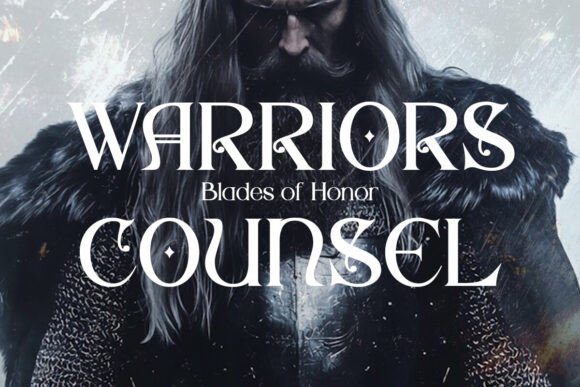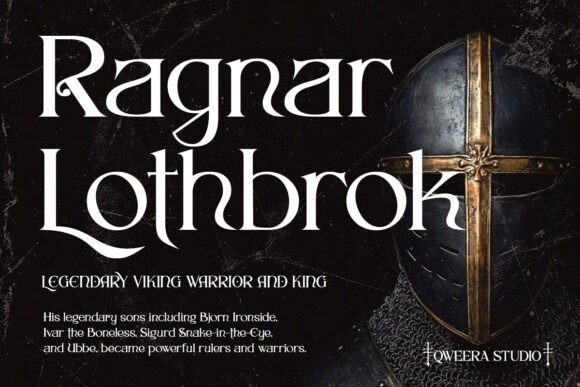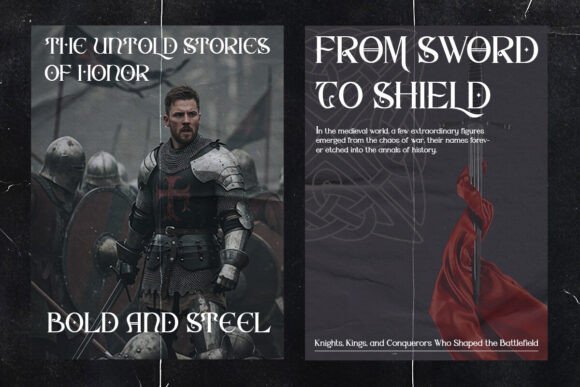
Areus Font: Elegant Celtic Serif for Unique Branding & Logo Design
About the Areus Font
The wait is over! The incredible Areus Font is now available for your design toolkit. Areus is a captivating Celtic-inspired serif font that blends ancient charm with modern design versatility. With its intricate knotwork details and elegant serifs, this font brings authentic Celtic character to your branding, packaging, and editorial projects.
Areus excels in headline applications, short text blocks, and branding materials where its intricate details can be appreciated. It lends itself well to projects requiring a touch of historical authenticity or Celtic heritage, such as logos for whiskey distilleries, craft breweries, or heritage tourism businesses. Avoid using Areus for large bodies of text or UI elements; its decorative nature can hinder readability in extended use.
Pairing Areus effectively requires considering its ornate style. A clean sans-serif like Open Sans or Lato provides a strong contrast and improves readability when used for body copy. For a more harmonious pairing, a simpler serif such as Garamond or Georgia can complement its elegance without overwhelming the design.
Areus projects a sophisticated and slightly formal personality, balancing elegance with a unique, handcrafted feel. Its inherent detail makes it unsuitable for minimalist designs, but ideal for projects that value historical reference and a touch of old-world charm.